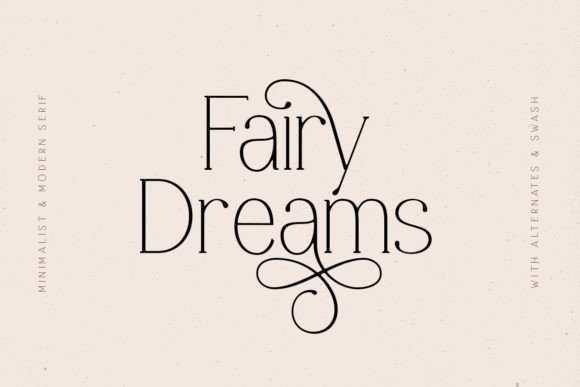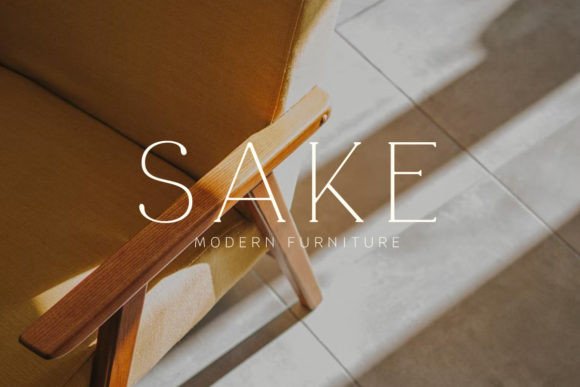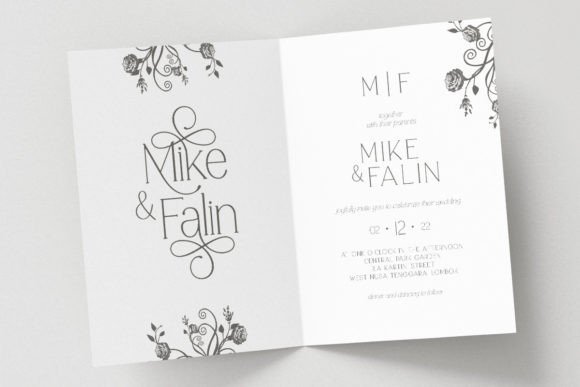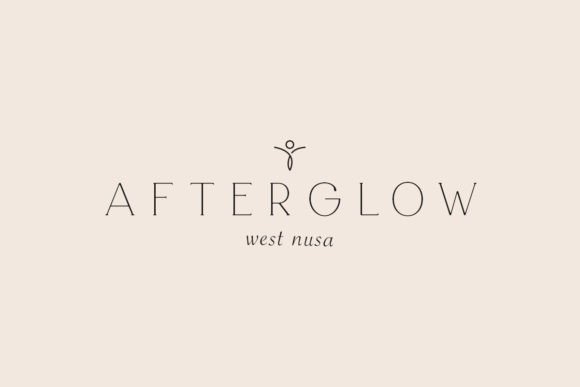
Fairy Dreams Font
About the Fairy Dreams Font
Make a bold statement with Fairy Dreams Font, a powerful and memorable font. Fairy Dreams is a minimalist and modern serif that comes with alternates and swash. You can use this font for any project, especially one that requires simple and elegant looks such as branding, logo, wedding invitations, and more.
Fairy Dreams excels in applications requiring understated elegance, such as logotypes, short headlines, and wedding stationery. Its delicate serifs and swashes lend themselves well to projects needing a touch of sophistication without being overly fussy. However, its thin strokes make it less suitable for body text or UI elements where high readability is crucial. Avoid using it for large blocks of text or small sizes.
The font’s minimalist nature pairs well with clean sans-serif fonts like Helvetica or Open Sans for a balanced, contemporary feel. For a more playful approach, consider pairing it with a rounded sans-serif such as Lato or a script font like Great Vibes, but use the script sparingly as a counterpoint.
Fairy Dreams projects an air of refined simplicity and gentle sophistication. Brands focusing on handcrafted goods, beauty products, or high-end stationery would find this font particularly fitting.
Fairy Dreams Font Usage Examples
Fairy Dreams Font Example